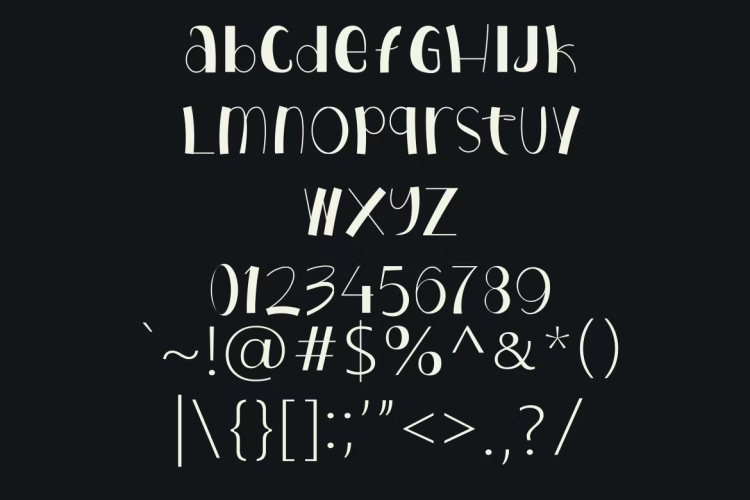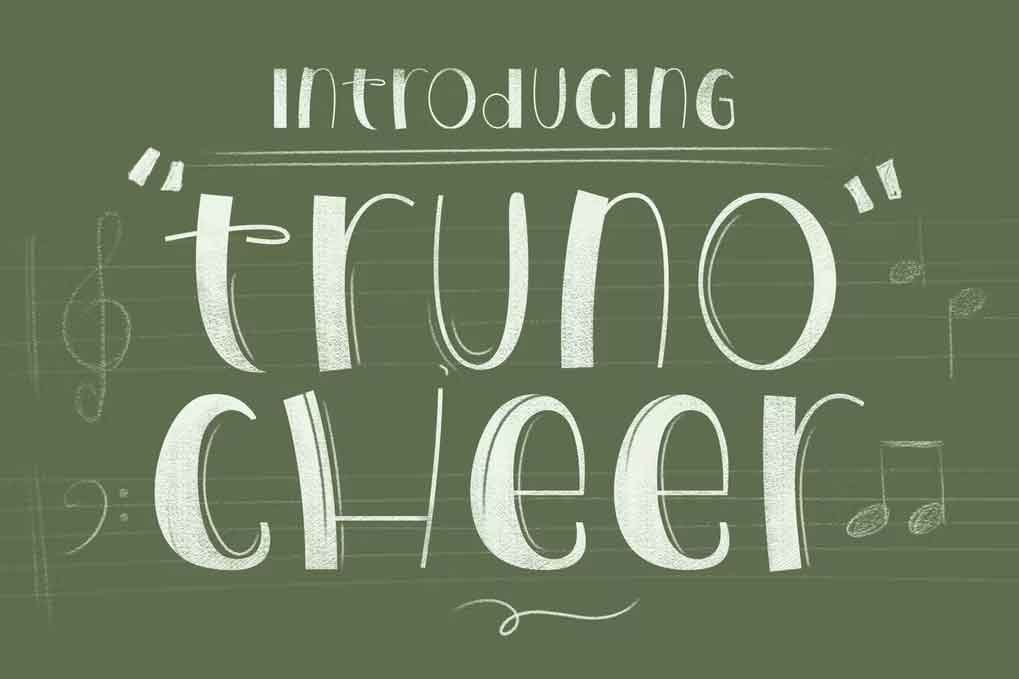
Truno Cheer Font
Truno Cheer Font is a Sans Serif Fonts font that brings a professional and versatile look to your projects. Proudly present our new product Five Goer Font is a modern and authentic font.